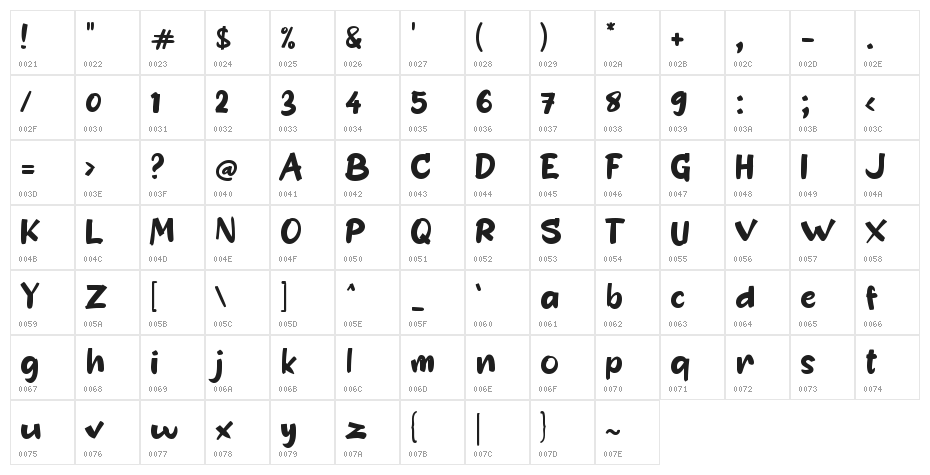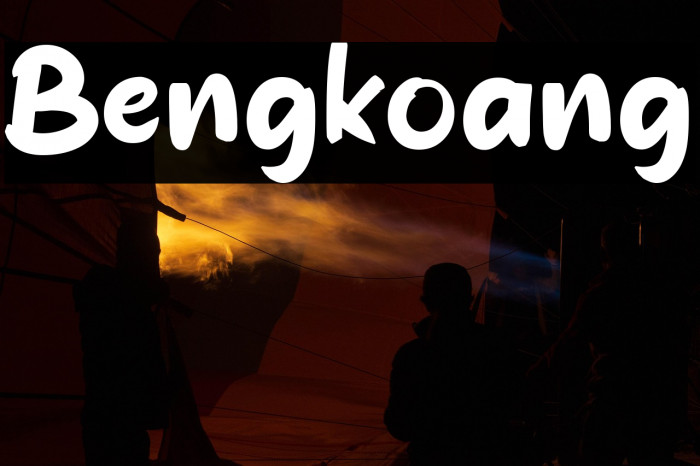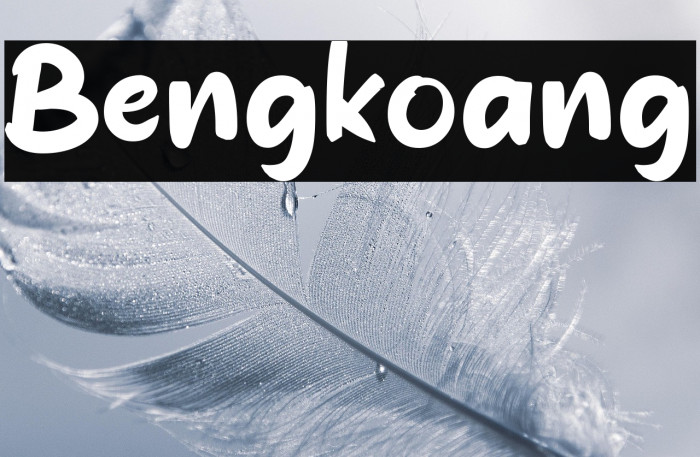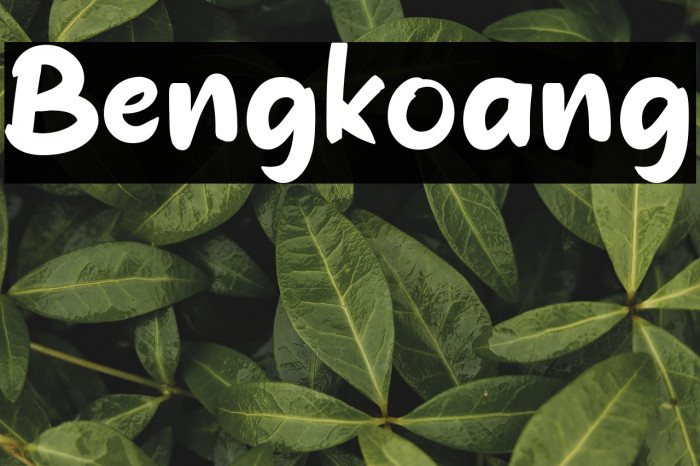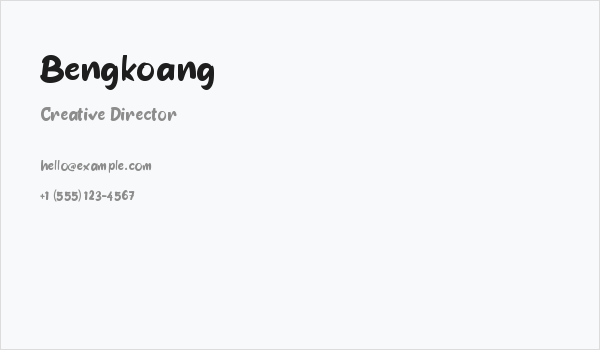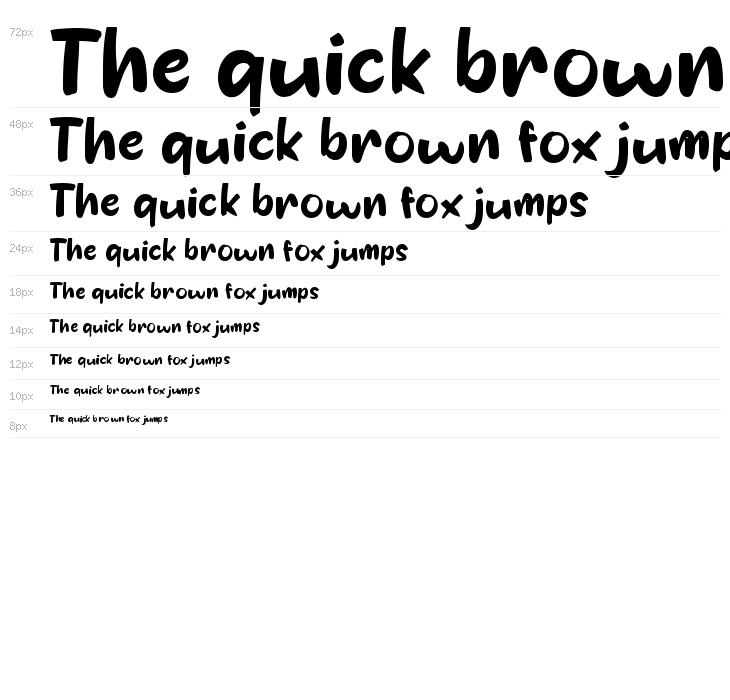
Bengkoang Font
Bengkoang Description
This font features a bold and playful style with a handwritten appearance. The letters are rounded and slightly irregular, giving it a casual and friendly look. The uppercase and lowercase characters maintain a consistent weight, contributing to its bold presence. The numbers and special characters are designed with the same playful aesthetic, making them easily readable and visually appealing. This font's unique style is perfect for projects that require a touch of personality and creativity.
| Proposed Projects | Ideal for children's books, playful branding, casual invitations, and creative posters. |